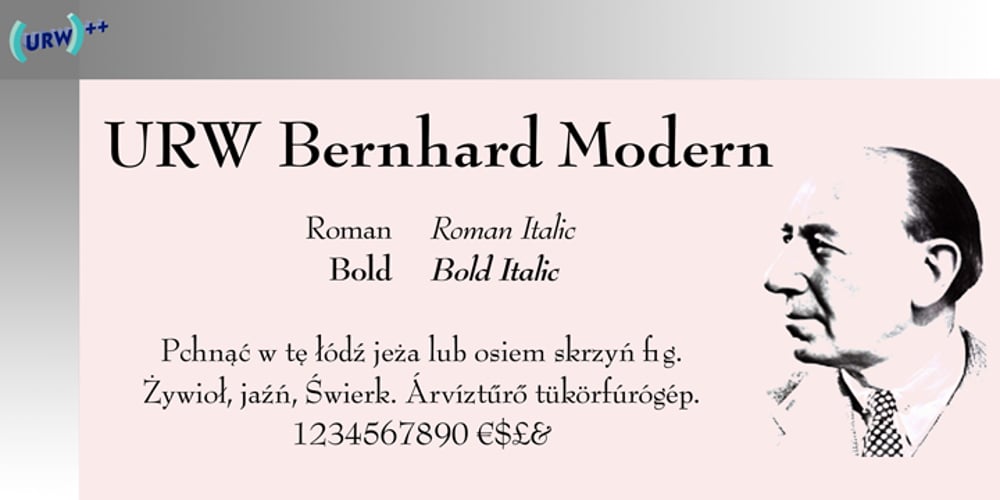
Bernhard Modern Font Family was designed by Lucian Bernhard and published by URW Type Foundry. Bernhard Modern contains 4 styles and family package options. Bernhard Modern was designed by Lucian Bernhard and was first cut by American Type Founders. Bernhard Modern is an unusual face with small lowercase but very tall ascenders and short descenders. Bernhard Modern was intended to hold its color and contrast without depending on the spread of ink of the letterpress method. It has an attractive pen drawn quality which has made it a popular choice for invitations and greetings cards. The Bernhard Modern font is useful for advertising and display work.